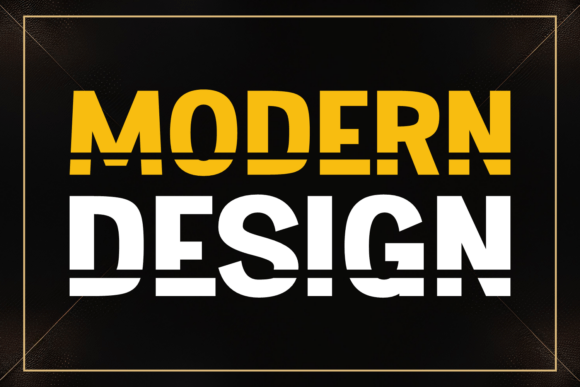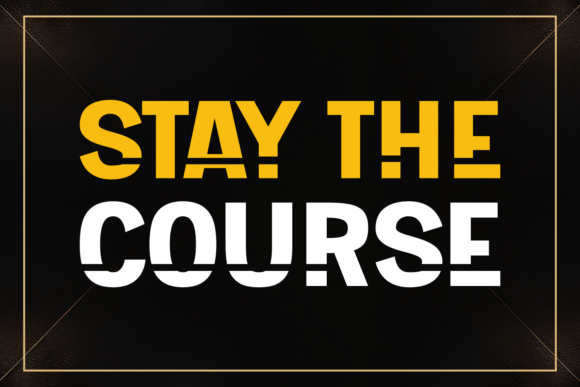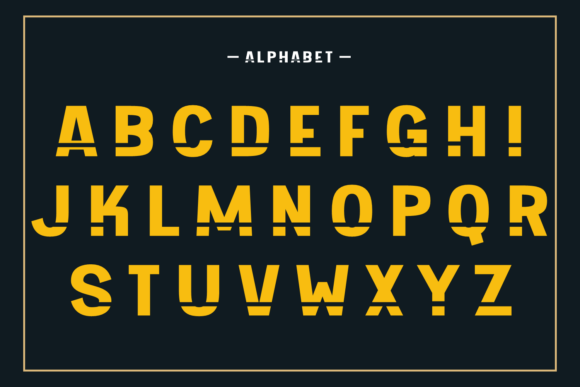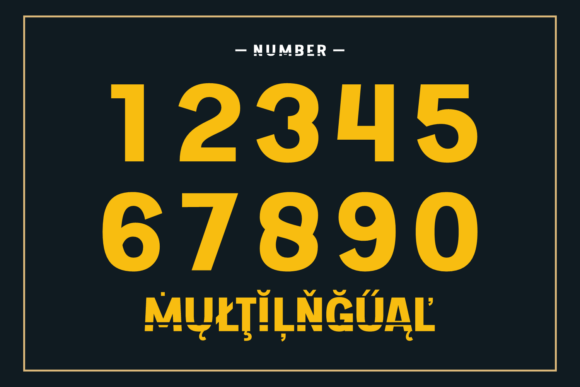
Introduction to Rasegad Font Font
Fonts play a crucial role in design, and the Rasegad Font font is a typeface that brings both character and versatility to any project. Whether you’re working on a branding project, a website, or a print design, the Rasegad Font font offers a unique style that can elevate your work.
Rasegad, is a distinctive typeface created with an intriguing fusion of styles that stands out in any application.
This modern display font combines thick lettering reminiscent of old-style fonts, tempered with grunge elements Rasegad is an alternative font with a rebellious streak, yet it doesnβt compromise on its authentic charm, making it a perfect accent font for unique designs.
The Rasegad Font font is more than just a typeface β it’s a design tool that helps you communicate your message with style and clarity. Its unique character set and versatile design make it suitable for a wide range of applications, from elegant invitations to bold headlines.
With its carefully crafted letterforms and balanced proportions, the Rasegad Font font ensures readability and visual appeal across all mediums.
The Rasegad Font font stands out with its unique design, exceptional readability, and versatility across various design applications.